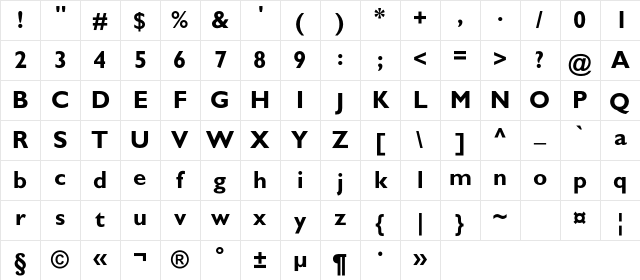
AZGillSansC Bold Free Font
AZGillSansC Bold
Complete AZGillSansC Bold glyph index. Displaying only characters natively supported by AZGillSansC Bold font.
Design Context for AZGillSansC
AZGillSansC is a composed and adaptable typeface that performs quietly and consistently across a wide range of design contexts. Its bold stroke weight gives it real presence on the page.